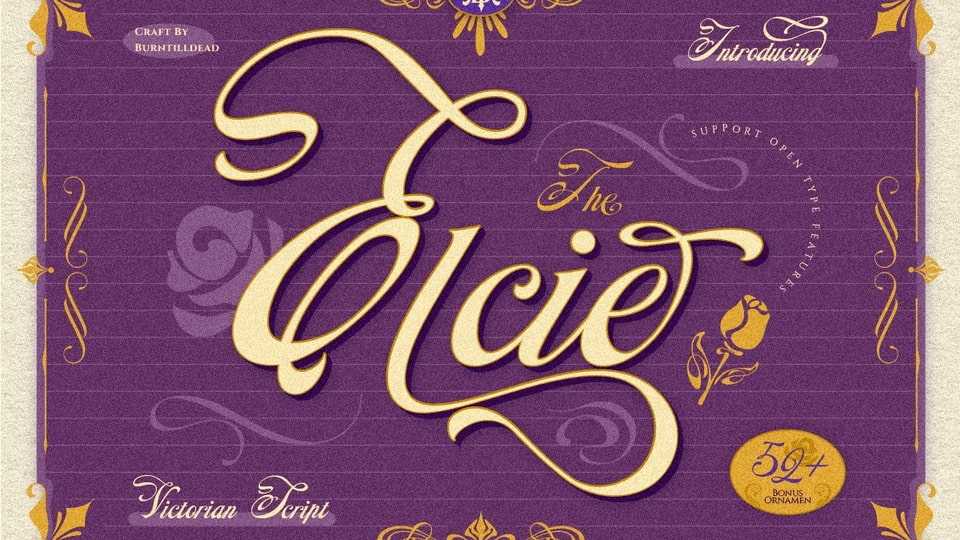
Download Elcie font, a beautiful calligraphy typeface that will make your design look Victorian, classical and elegant impression with additional free ornaments.
Designer: Eric Kurniawan